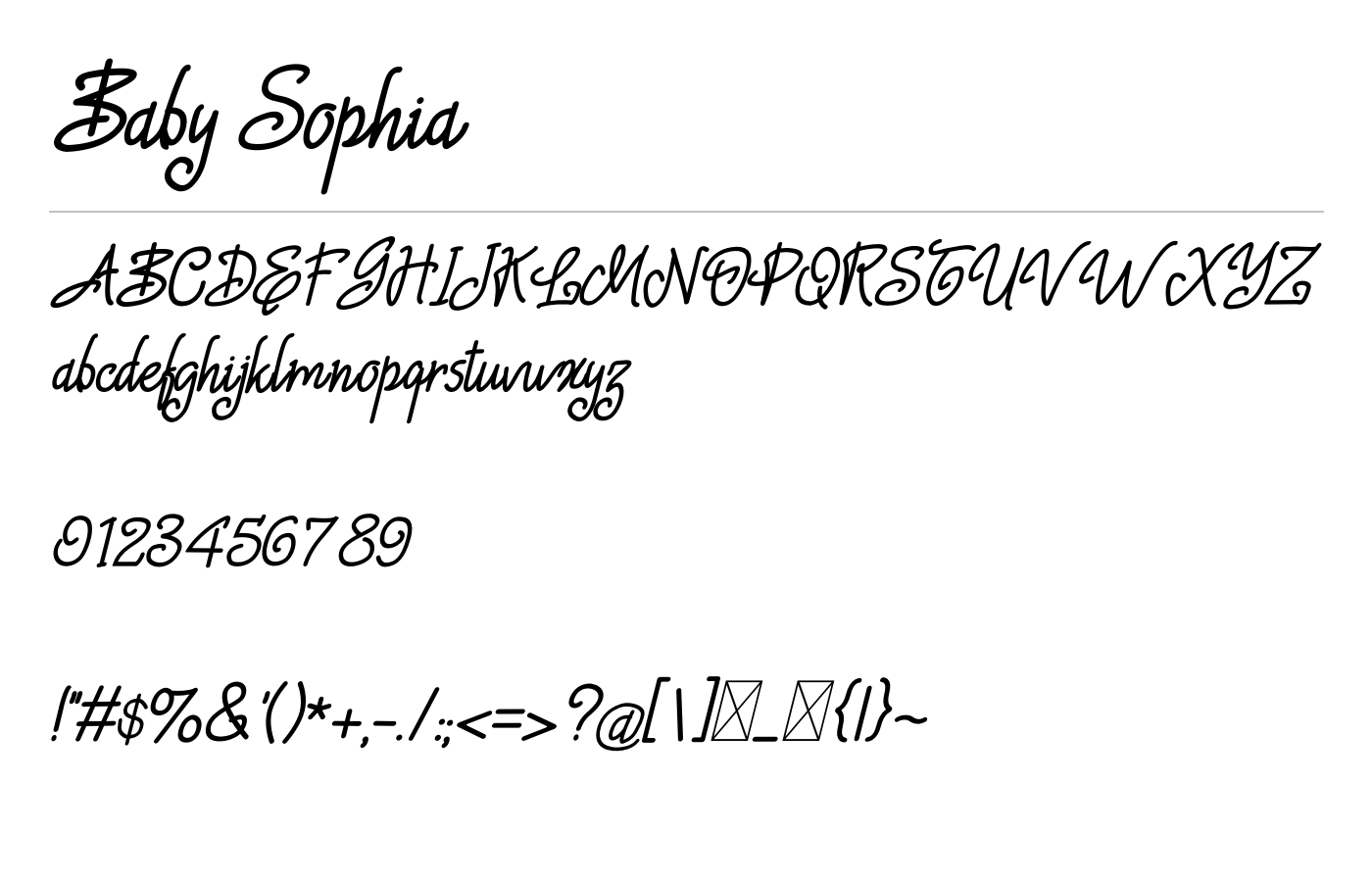
Baby Sophia is a playful and elegant script font with a smooth, handwritten feel, featuring slender, slightly slanted letterforms and distinctive swashes that add charm and personality. Its light weight and graceful curves make it ideal for invitations, branding, and creative projects seeking a friendly yet refined touch. This font works especially well for designs that want to convey warmth and sophistication with a personal, artistic flair.
Baby Sophia Font
About Baby Sophia Font